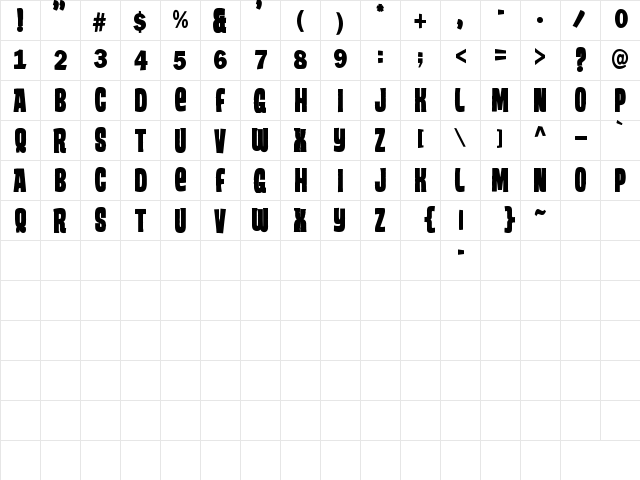
Tan Patty Regular
Design Context for Tan Patty Typeface
Tan Patty is a composed and adaptable typeface that performs quietly and consistently across a wide range of design contexts.